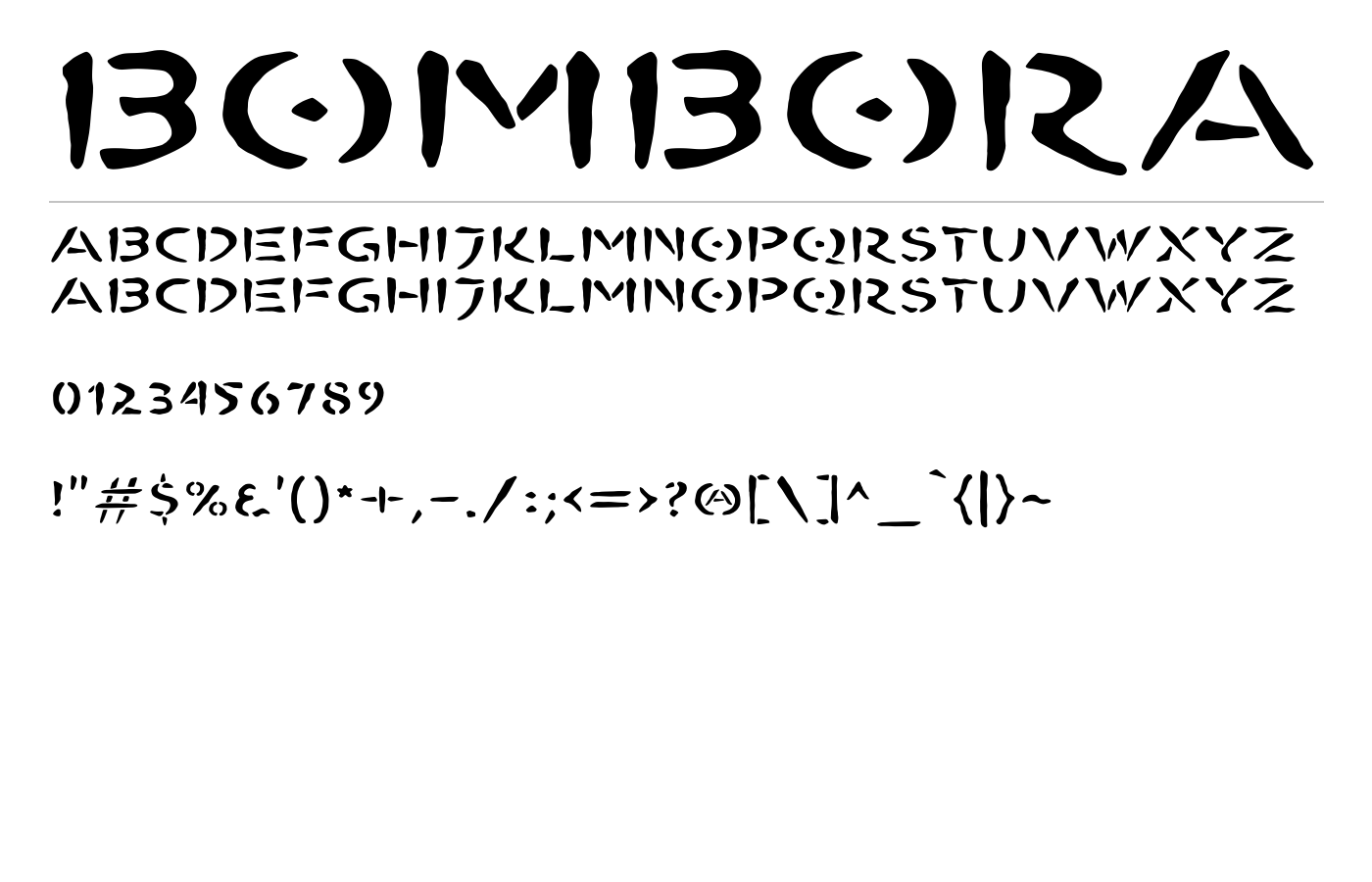
Bombora is a distinctive, hand-drawn sans serif font with a bold, irregular stroke style that gives it an organic, adventurous feel. Its playful yet strong letterforms work well for creative branding, headlines, and projects that seek a unique, dynamic look, especially in entertainment or lifestyle contexts.
BOMBORA Font
About BOMBORA Font
| Font family | BOMBORA Font |
| Designer | Jan Paul |